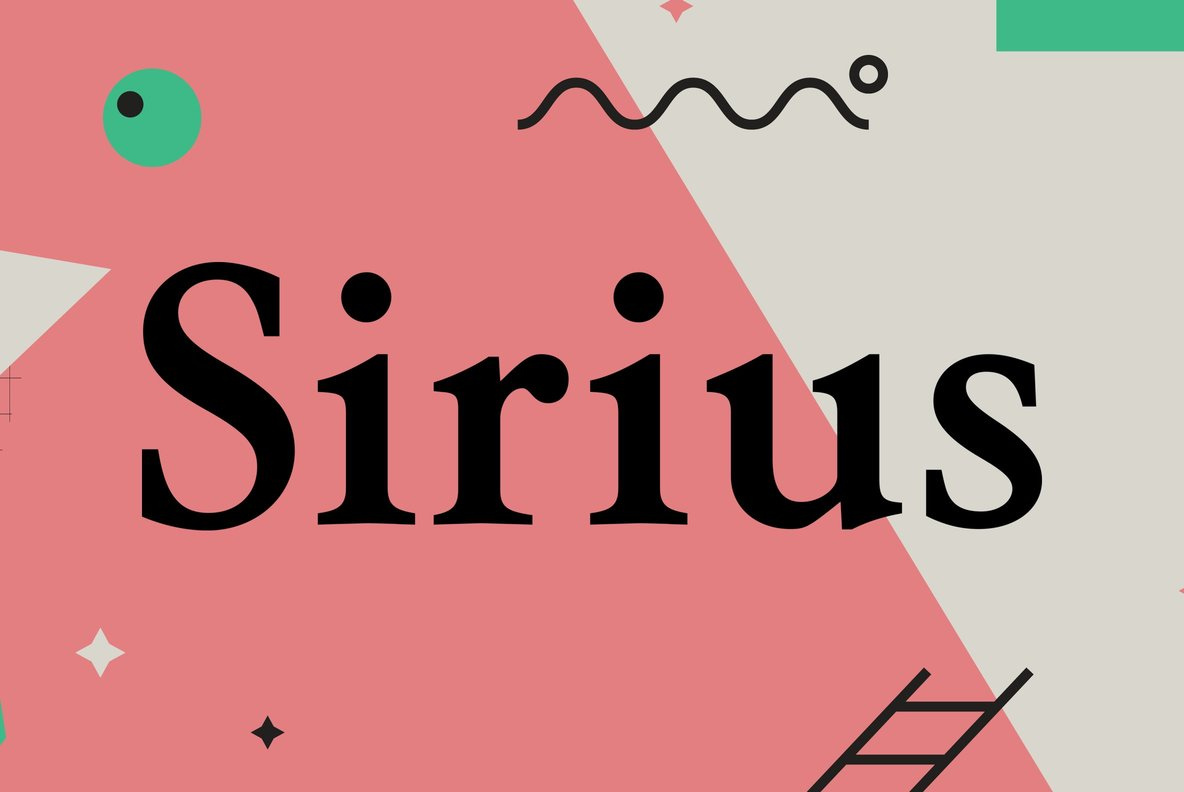
Sirius Font
Sirius Font is perfect for stellar branding projects, astronomy-themed designs, space technology companies, cosmic event promotions, planetarium communications, sci-fi entertainment marketing, celestial product packaging, and luminous advertising campaigns. This brilliant typeface works exceptionally well in both digital applications and print media where cosmic wonder and stellar magnificence are fundamental design requirements.
What makes Sirius Font so exciting is its radiant interpretation of the brightest star in our night sky through luminous letterforms that seem to shine with the same celestial brilliance that has guided navigators for millennia. The font features gleaming characters with stellar proportions, cosmic curves, and brilliant details that evoke the awe-inspiring vastness of space and the eternal fascination with distant stars. Its luminous personality and celestial heritage make it ideal for brands seeking to communicate infinite possibilities, cosmic inspiration, and the boundless human desire to reach for the stars while maintaining excellent readability across stellar applications.
The Sirius Font family includes multiple weight variations with different stellar intensities, along with cosmic alternates and astronomical ornamental elements. Each style maintains the typeface's brilliant character while offering comprehensive character sets including stellar numerals, cosmic punctuation marks, and special symbols designed to enhance astronomical communications and celestial branding efforts across various space-themed contexts.
This remarkable typeface represents the perfect fusion of cosmic inspiration and contemporary design excellence for technology and entertainment industries. Whether you're developing space exploration identities, creating astronomy education materials, or designing sci-fi entertainment promotions, Sirius Font Free Download provides the stellar brilliance and versatility needed to inspire audiences who dream of the cosmos. The font's celestial heritage makes it particularly effective for space agencies, planetariums, science museums, and businesses celebrating humanity's eternal quest to understand our place in the universe.
The meticulously crafted stellar construction and optimized cosmic performance in Sirius Font ensure maximum brilliance while maintaining clear communication across all astronomical applications. Its radiant presence makes it ideal for cosmic branding, stellar marketing campaigns, and celestial communications where its full stellar character can create unforgettable impressions and establish immediate association with wonder, exploration, and the infinite beauty of our cosmic neighborhood.